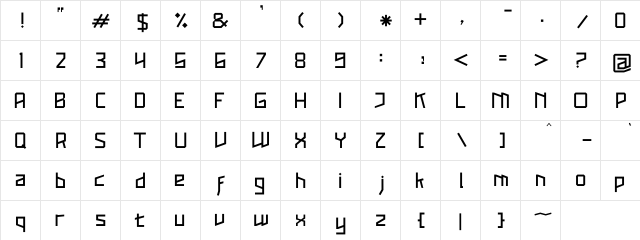
Kagaku Regular Font Preview
Kagaku Regular
Design Context for Kagaku Typeface
Kagaku offers clean, dependable letterforms without strong stylistic allegiance, making it a practical choice for designers who need flexibility.
Pro Tip: Use Kagaku in both headline and body roles to test its range before committing to a single application.